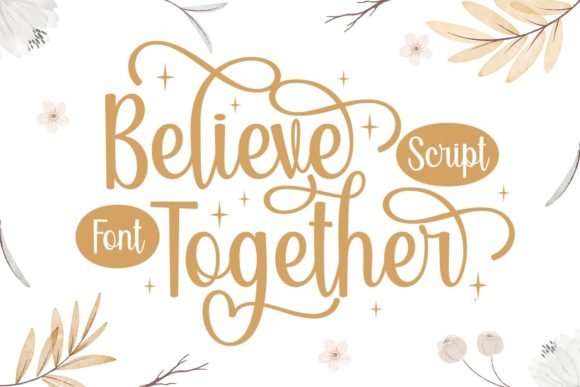
The Perfect Font to Bring Your Designs to Life
Have you ever stared at a blank canvas, waiting for inspiration to strike? That’s exactly what happened to me when I discovered the Believe Together Font. As a designer, there’s nothing quite like the rush of creating something beautiful and meaningful.
Believe Together Font is a stunning script font that’s perfect for adding a touch of elegance to your designs. Whether you’re working on a wedding invitation, a branding project, or a social media campaign, this font is sure to make a lasting impression. With its PUA encoding, you’ll have access to all the glyphs and swashes you need to create truly gorgeous designs.
As a designer, you know how important it is to have the right tools at your fingertips. That’s why I’m excited to share the Believe Together Font with you – it’s a game-changer for anyone looking to take their designs to the next level.
- Unique Characteristics: Believe Together font features a unique blend of modern and traditional elements, making it perfect for projects requiring a touch of sophistication and elegance.
Designer Review: Believe Together Font
As a designer, I was excited to dive into the Believe Together Font and see if it lived up to its name. Overall, I think it’s a solid choice for a bold, eye-catching font, but it’s not without its limitations.
- The Believe Together Font is extremely readable, even at smaller sizes. The clear letterforms make it perfect for headings and titles.
- The font has a strong, energetic feel that’s perfect for modern brands and designs that want to make a statement.
- The Believe Together Font is highly customizable, with a wide range of font weights and styles to choose from.
- The font can feel a bit over-the-top at times, which may not be suitable for all designs. It’s a bold font, so use it sparingly.
- The Believe Together Font is not ideal for body text, as it can be a bit too ornate and distracting.
While the Believe Together Font has its limitations, I think it’s a great choice for designers who want to add some extra flair to their designs. With careful use and customization, it can be a powerful tool for making a statement. Just be aware of its potential drawbacks and use it wisely.
For optimal use, pair the Believe Together font with a clean and simple design.
Use it for inspirational quotes, motivational messages, or social media graphics.